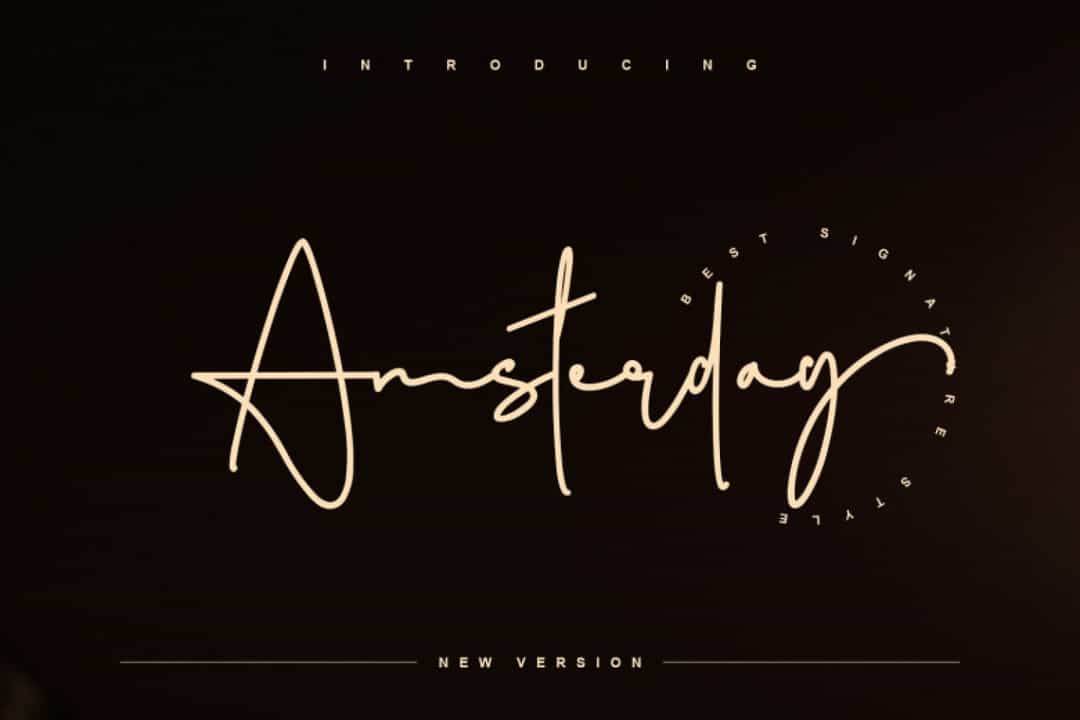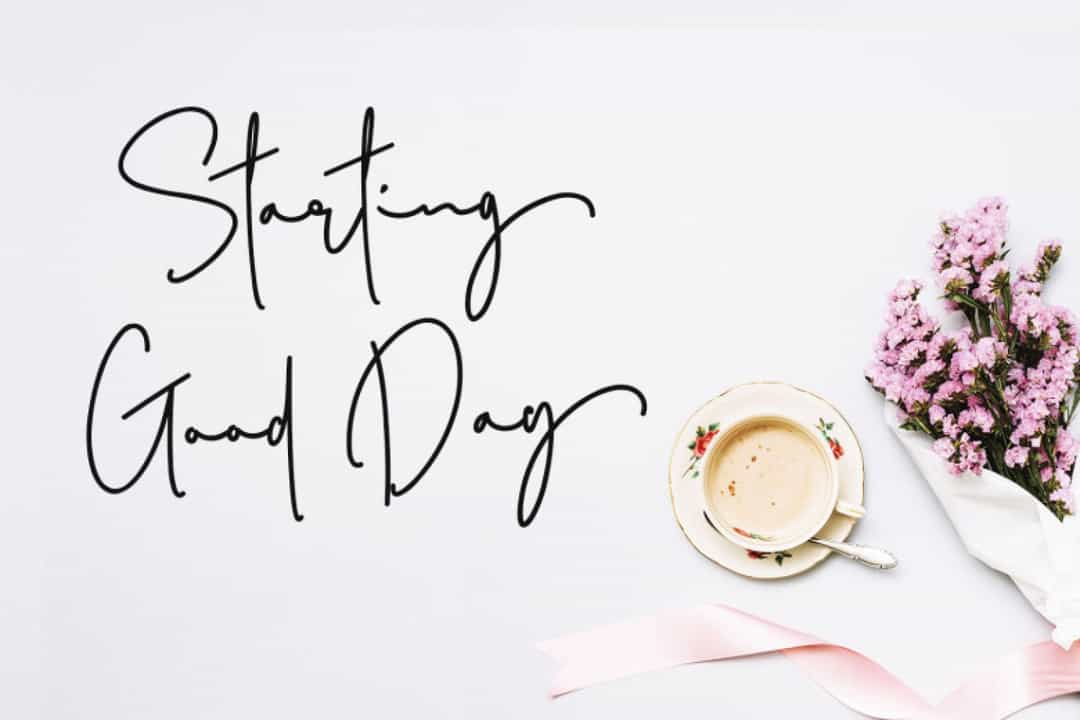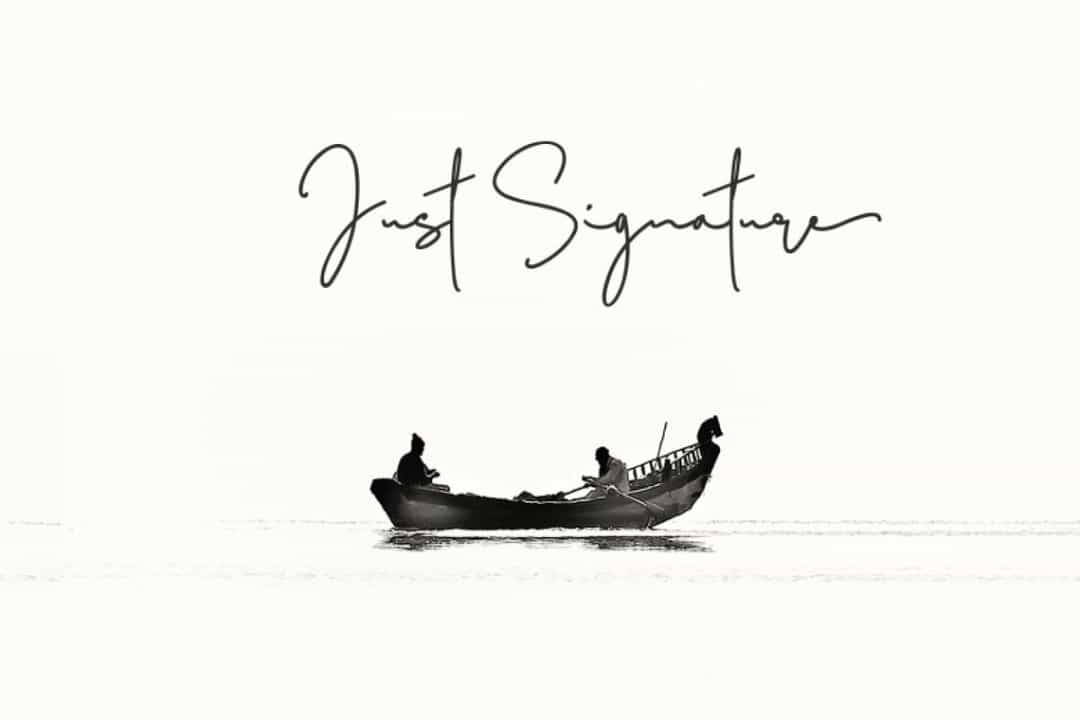
Amsterday can be described as an exquisite trademark script font. Careful consideration was taken in creating it to replicate natural handwritten writing and include charming swashes – giving your design projects the edge they need!